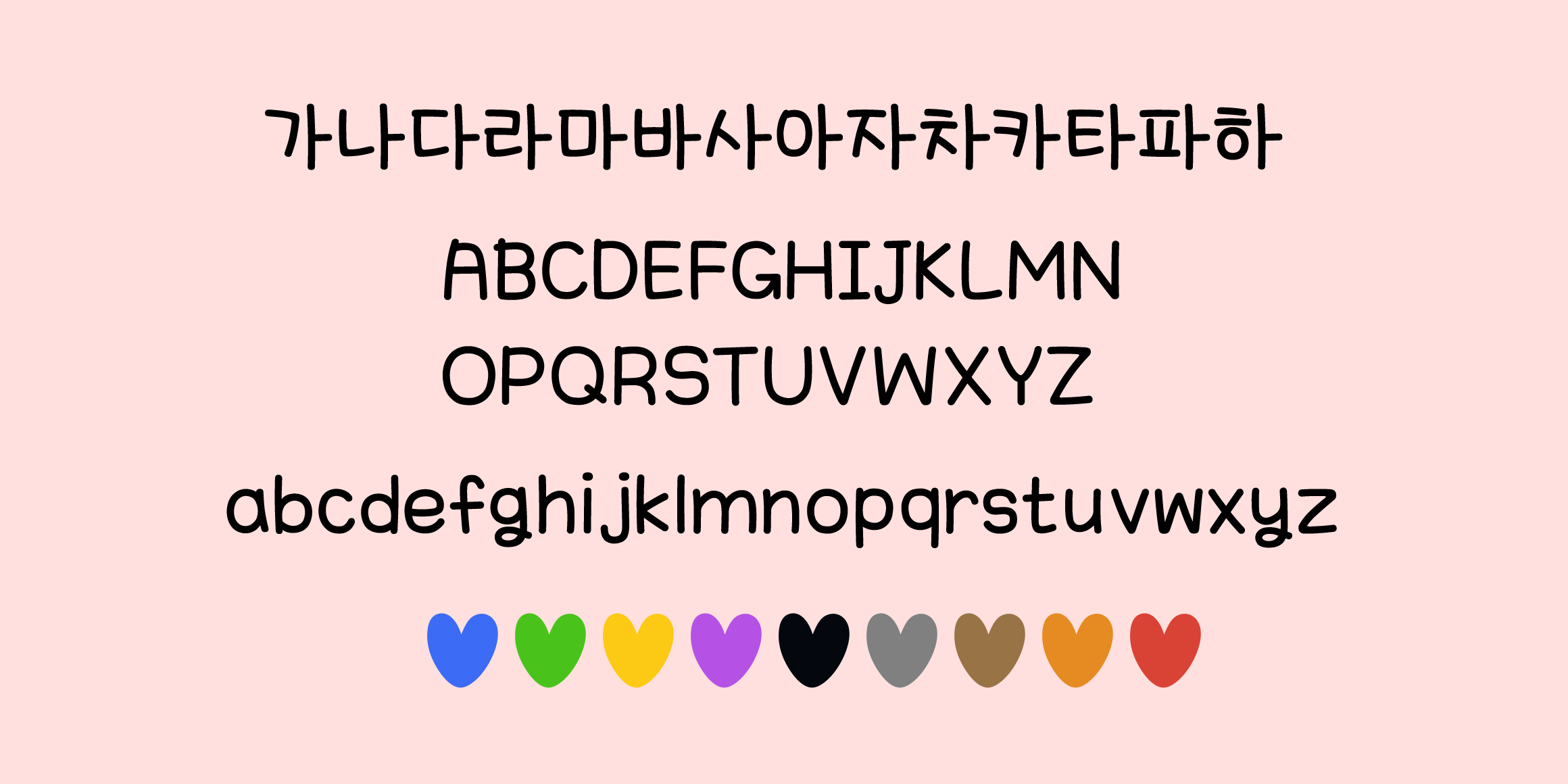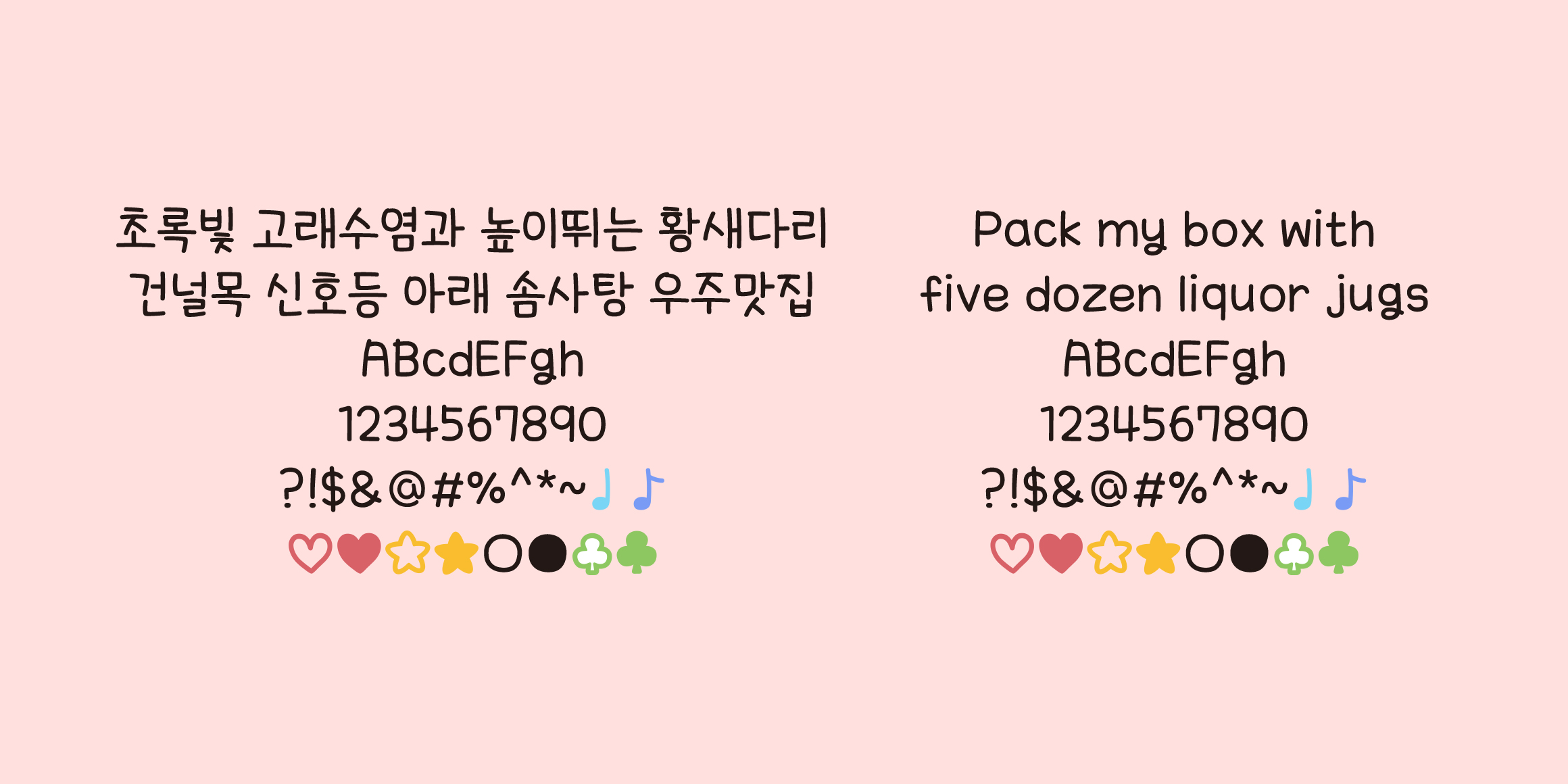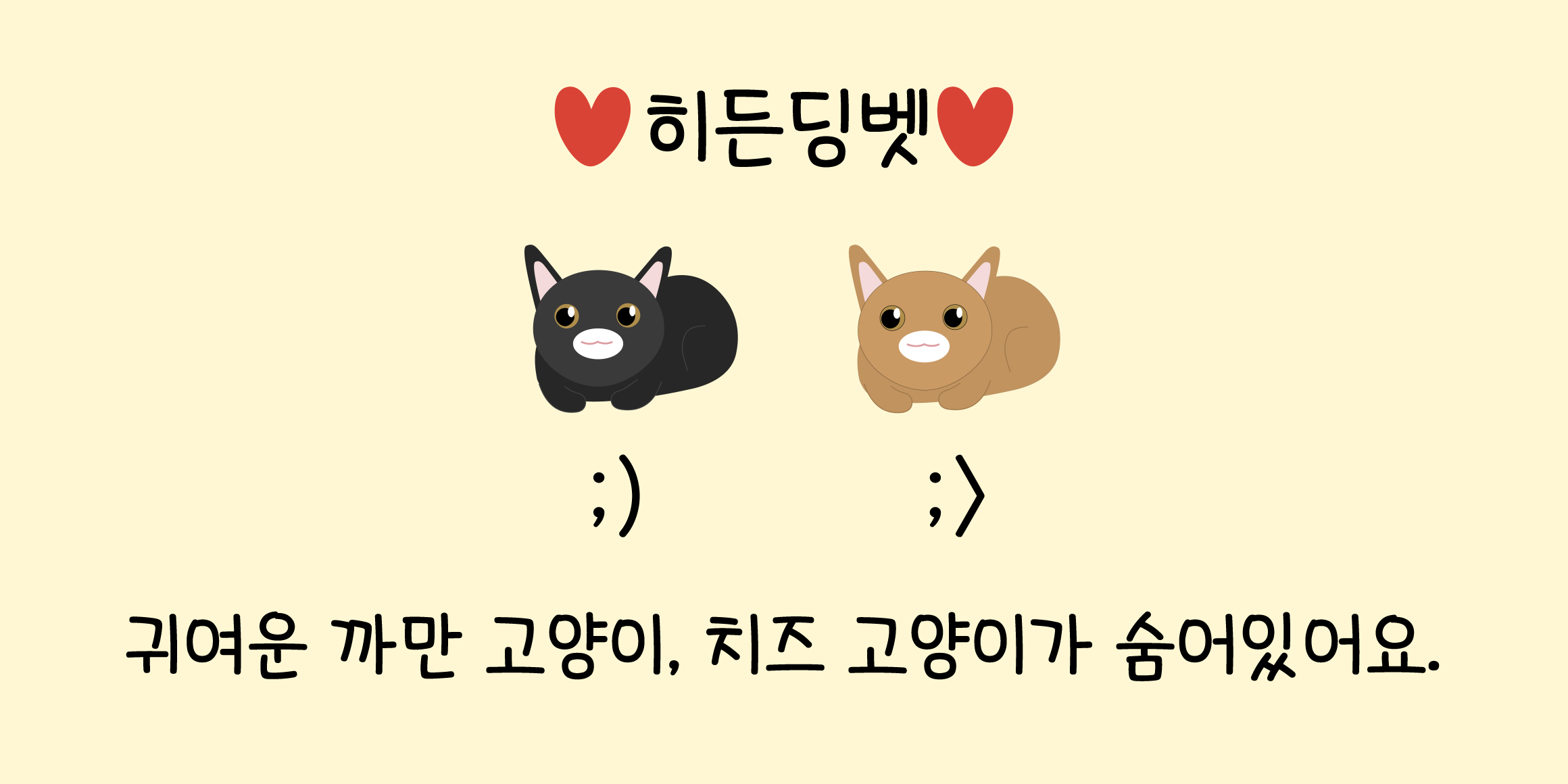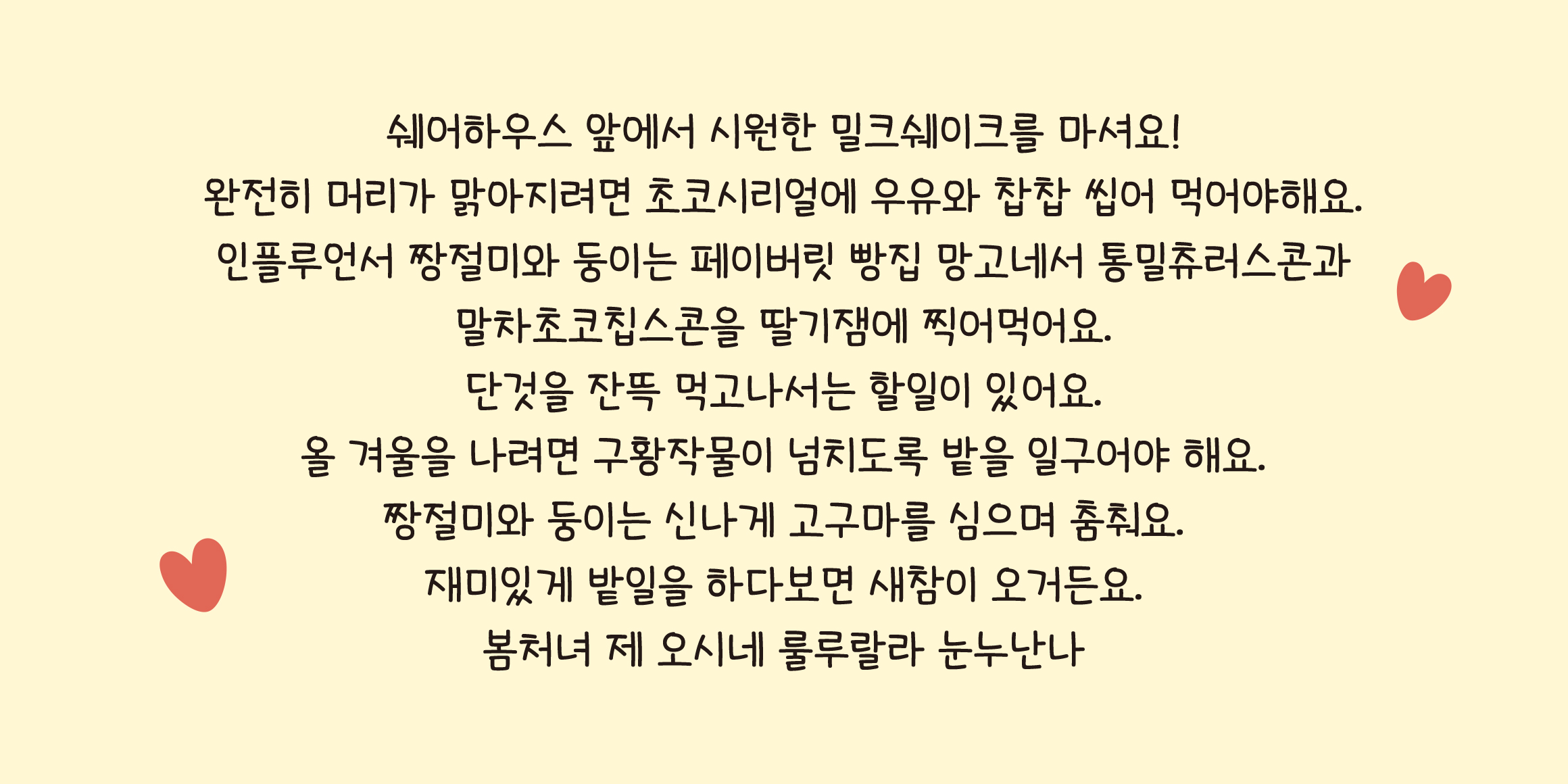
DXKkongnyang
Just by looking at it, the cute handwriting is a handwriting that looks like it's written naturally!
Hangul, Latin, and numbers all gave a sense of unity that seemed to pop out little by little like real handwriting!
- ;) ;> There are a total of 2 cat colored hidden dingbats!
- ★☆☎☏♠♡♣♤♥♧♨ supports color special characters.
- However, it is displayed in black and white on browsers that do not support color functionality.
- It supports Latin, Japanese (Hiragana, Katakana), and Cyrillic characters.